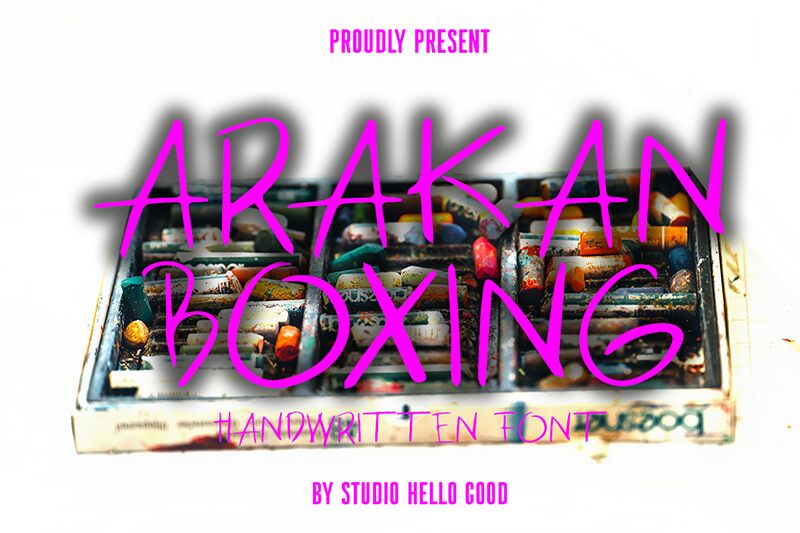
Arakan Boxing font designed by Studio Hello Good is a handwritten typeface with all the energy and dynamic lines. The free contemporary font achieves a great balance and rhythm for a vibrant look worthy of its inclusion in your artwork. Arakan Boxing is chaotic – as suggested by its name – and highly suitable for all informal usages such as playing with letterforms. Don’t be afraid to get expressive and enjoy while playing!
Get energetic and use Arakan Boxing in personal projects related to games, menus, book covers, packaging, branding, advertisements, and all-things-digital. The animated font will engage your audience and leave them curious to explore the chaotic letters closely.